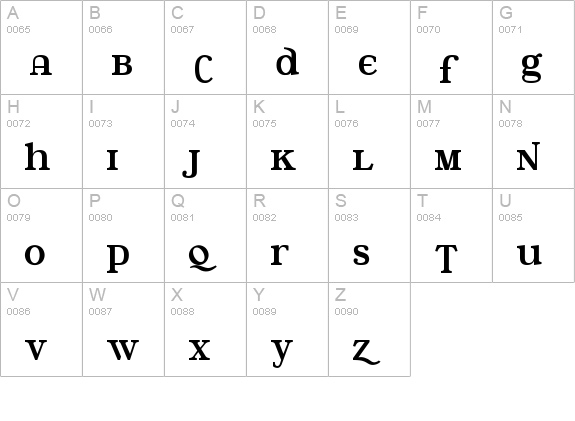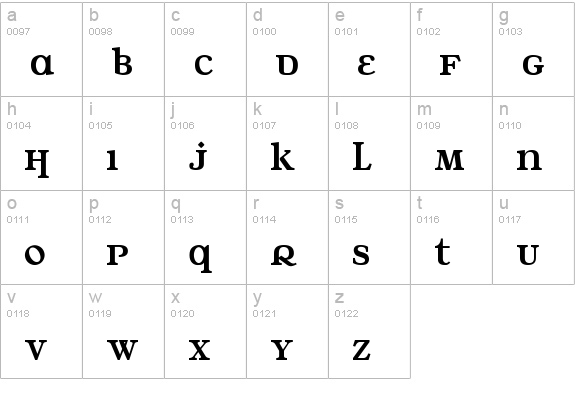
Water Street Font Details
Introducing Water Street, a breathtakingly beautiful font that will captivate your audience with its elegance and charm. This stunning typeface embodies the essence of modern sophistication, making it perfect for a wide range of creative projects. With its delicate curves and graceful strokes, Water Street exudes a sense of timeless beauty, effortlessly blending classic and contemporary design elements. Its versatile nature allows it to be used in various contexts, from logo designs and branding materials to invitations and editorial layouts. But what truly sets Water Street apart is its accessibility - it's entirely free! Yes, you read that right. This exceptional font is freely available to download at FontsMarket.com. Now, you can add a touch of elegance to your designs without breaking the bank. Whether you're a professional designer or a creative enthusiast, Water Street is a must-have in your font collection. Its clean lines and impeccable details will elevate your projects to new heights, ensuring that your message is conveyed with utmost clarity and sophistication. So why wait? Head over to FontsMarket.com and explore the world of Water Street. Download this remarkable font today and unlock a world of endless possibilities. Let your creativity flow and watch as Water Street transforms your designs into works of art.